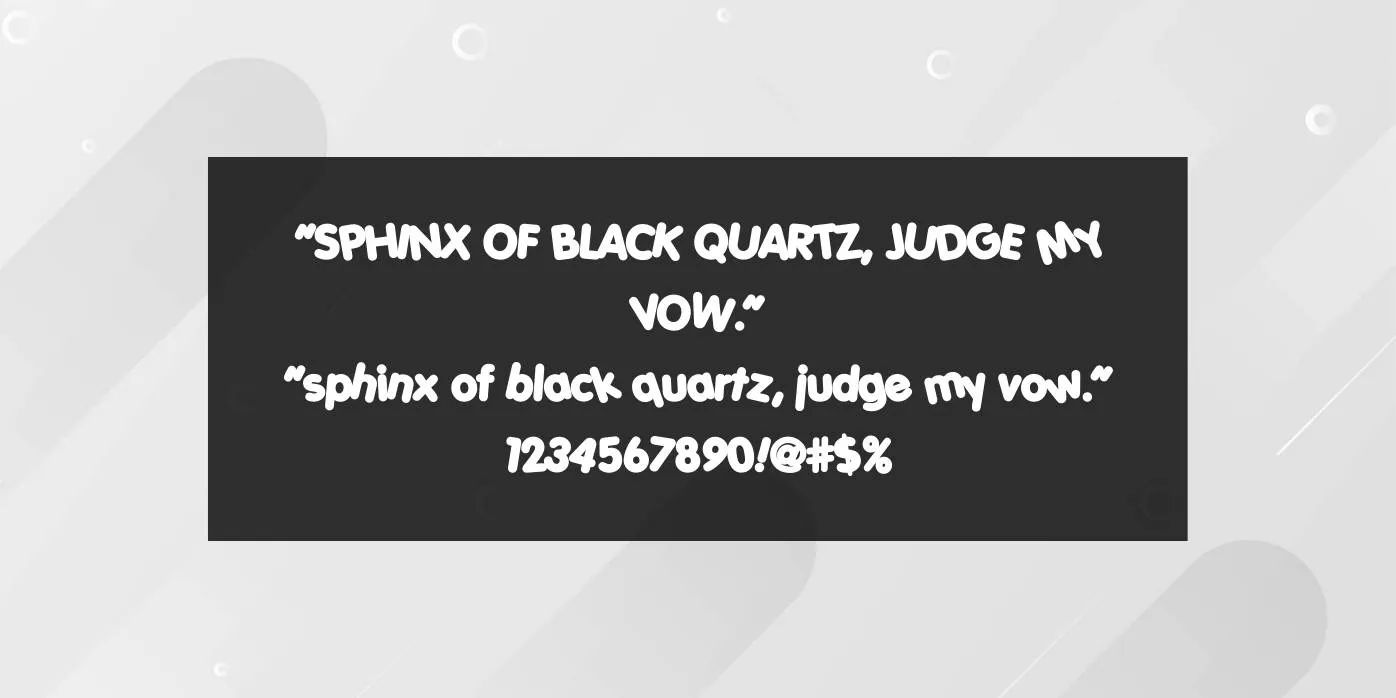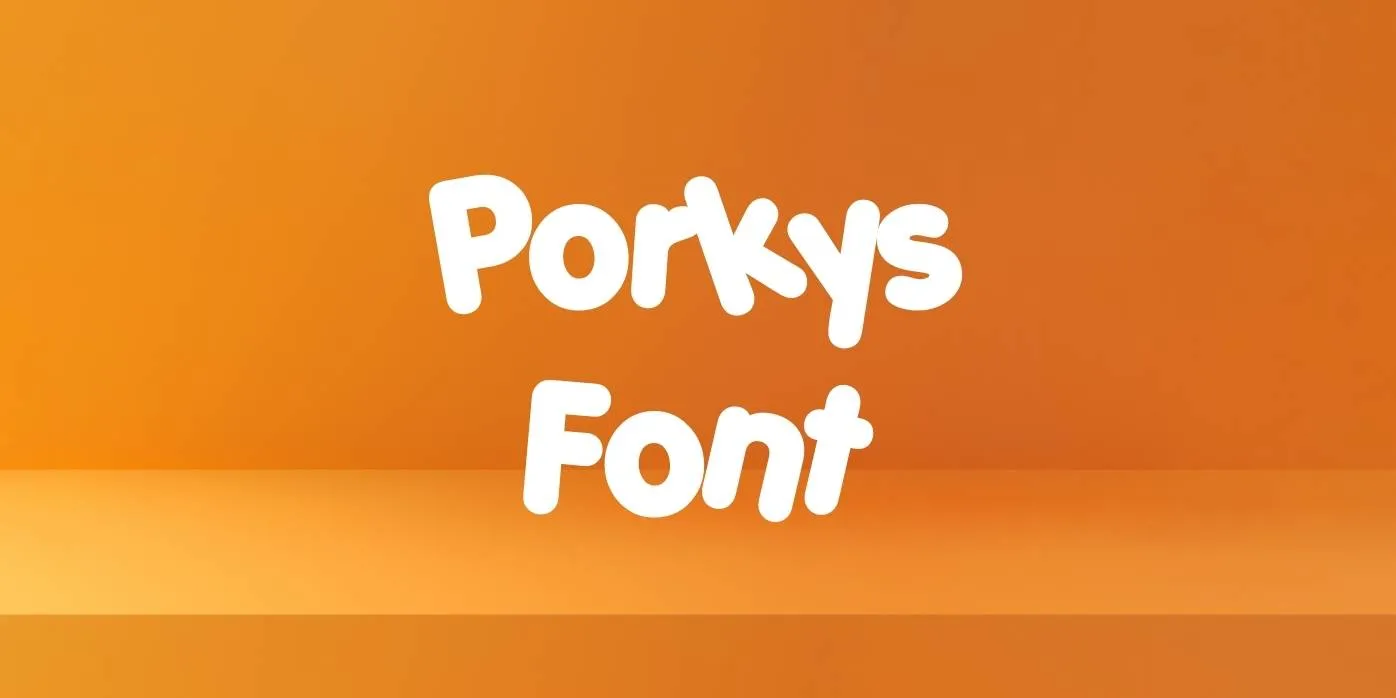
Porkys Font
Porkys Font was developed by Fontalicious. This typeface belongs to the Fancy Font. This cute typeface is a great choice for those looking for a unique and stylish font. This typeface has a very playful feel to it, making it perfect for any project that needs a touch of personality.
It is best for Adobe Photoshop, Adobe Illustrator, and others. This stunning font is available in two different styles, Regular and Outline. Each style contains over 200 glyphs, including support for multiple languages. This Font is a great choice for any project that needs a touch of personality.